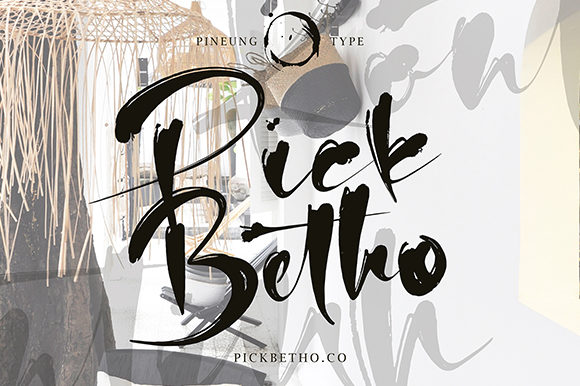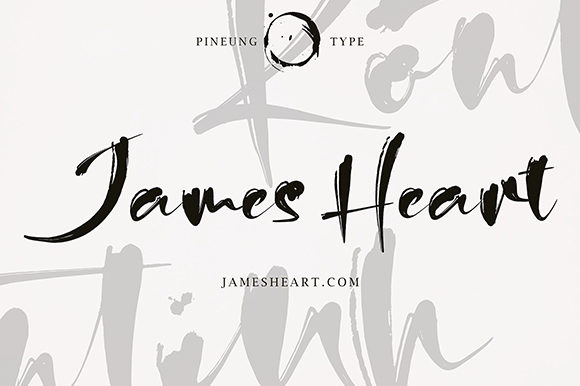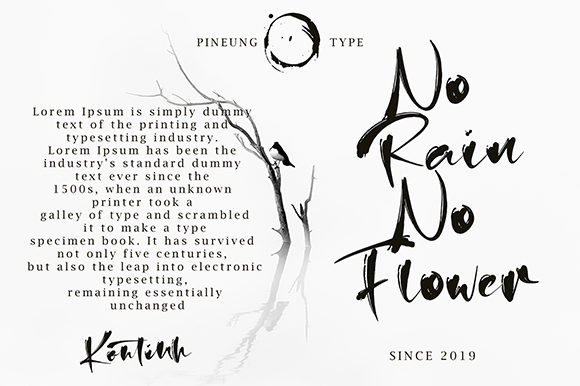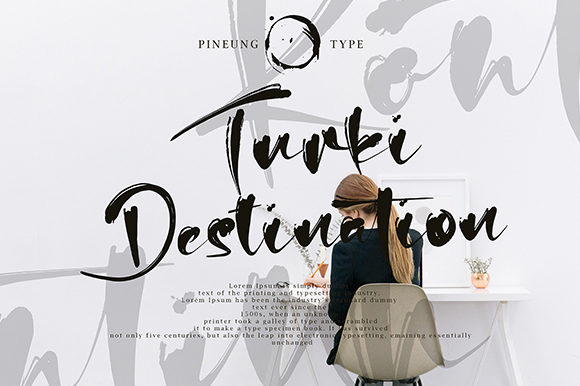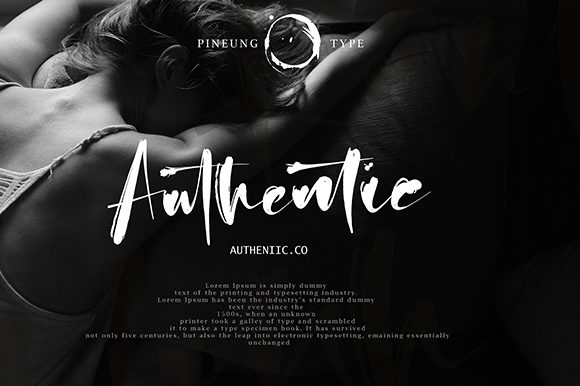
Kontinh Font
About Kontinh Font
Kontinh is a an amazing handwritten font with incredibly authentic swashes. It will put a contemporary spin on any design idea!